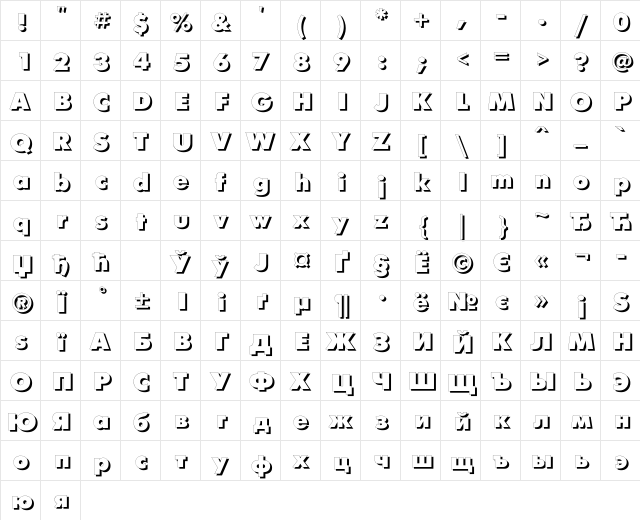
FuturisXShadowCTT Regular
Design Context for FuturisXShadowCTT Typeface
FuturisXShadowCTT has a distinctly futuristic character, with geometric precision and clean angles that feel at home in technology, gaming, and sci-fi contexts.